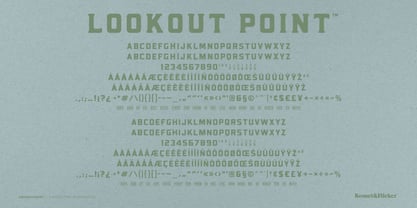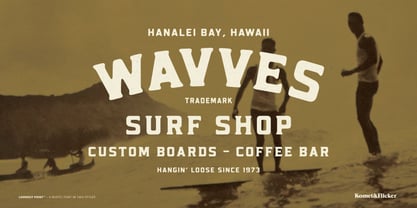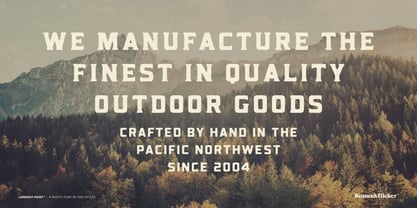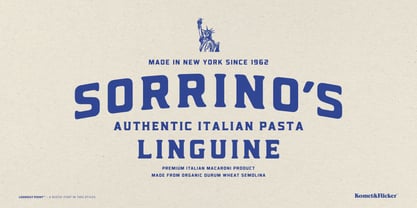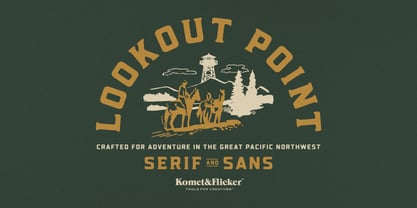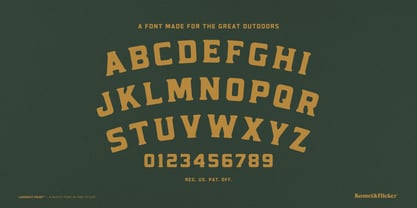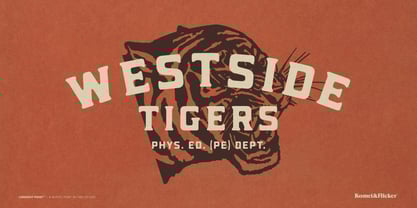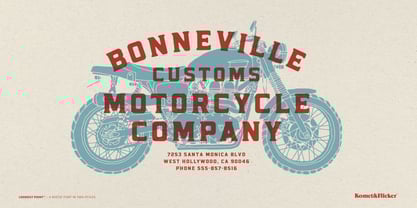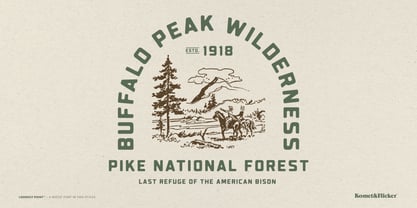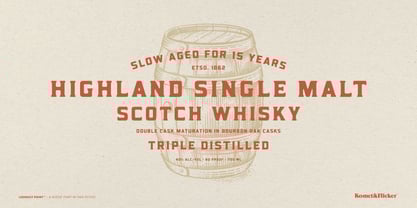
Lookout Point
La famille de polices Lookout Point a été conçue par David Phillips et publiée par Komet & Flicker. Lookout Point contient 2 styles et options de package familial. En savoir plus sur cette famille
Elevate your designs with Lookout Point, a versatile two font family that brings a touch of rugged charm and authenticity to any project. This unique caps font comes in two styles: a serif that exudes a rustic flair, and a sans serif that communicates a simpler feel.
This font captures the spirit of the great outdoors with its rustic, well-worn feel, making it perfect for outdoor-themed designs, coffee shops, vintage apparel, and beer & spirits labels. Its hand drawn details evoke a sense of nostalgia and adventure, ensuring your brand stands out with a touch of personality.
Lookout Point also includes a set of 20 custom connecting words allowing for seamless typography and enhancing the flow of your text. In addition, the serif version includes alternate characters for “A M N Q R and W”.
Whether you're crafting a logo, signage, or product labels, this font family offers the perfect blend of character and functionality. Discover the authentic voice of your brand with Lookout Point – where the spirit of the wild meets modern design.
THIS FONT COMES IN TWO STYLES
• Lookout Point Serif
• Lookout Point Sans
THIS FONT INCLUDES
• Full A-Z basic latin characters
• Select European specific characters
• Numbers, punctuation, and select symbols
• A set of 20 custom connector words